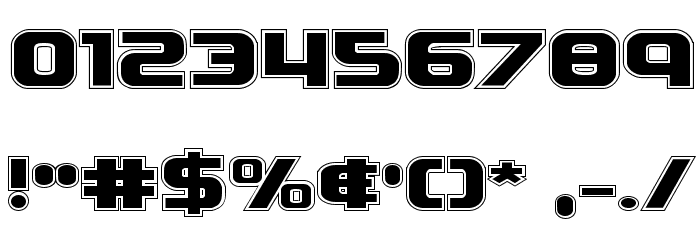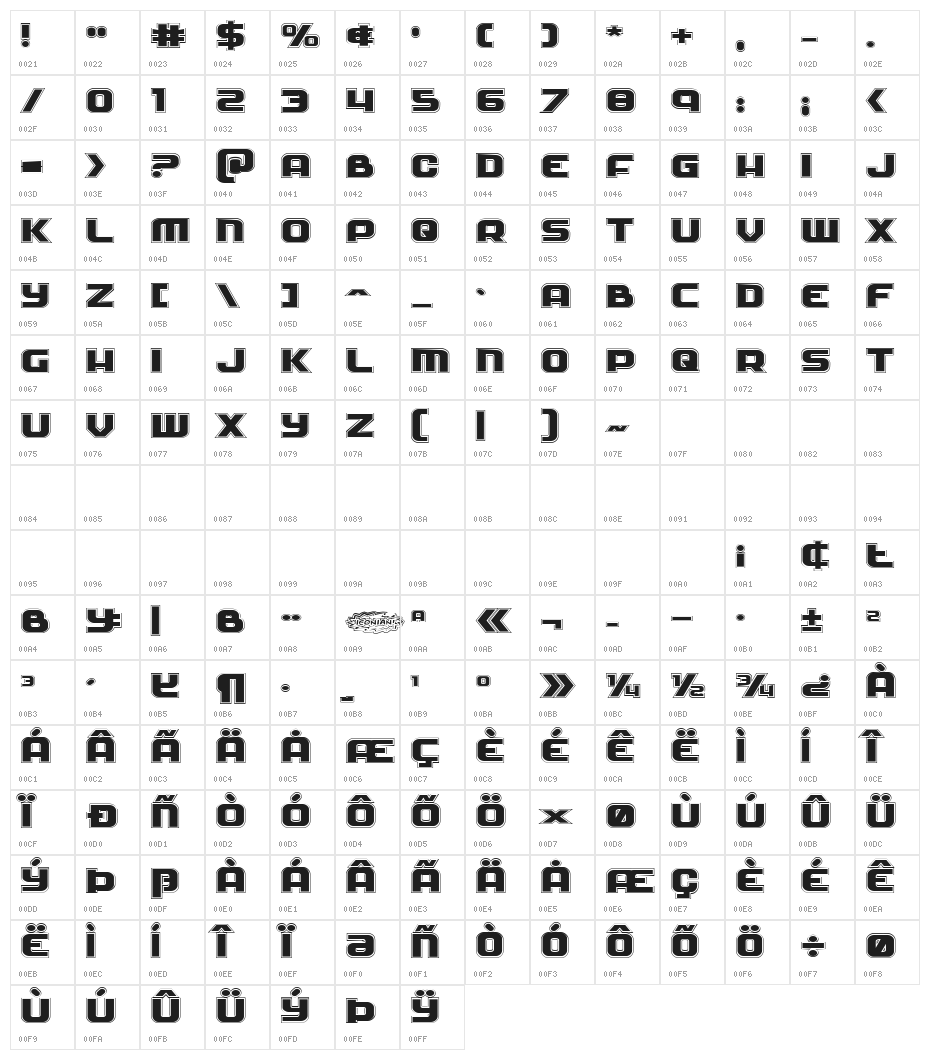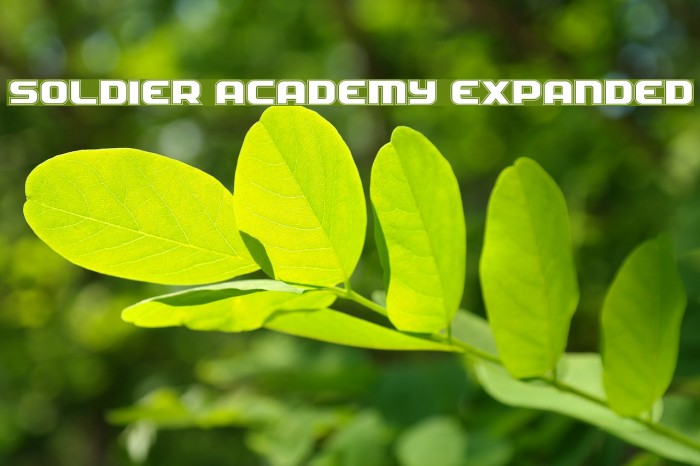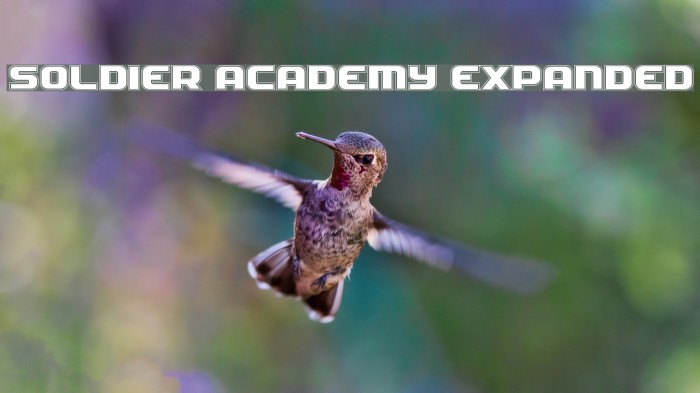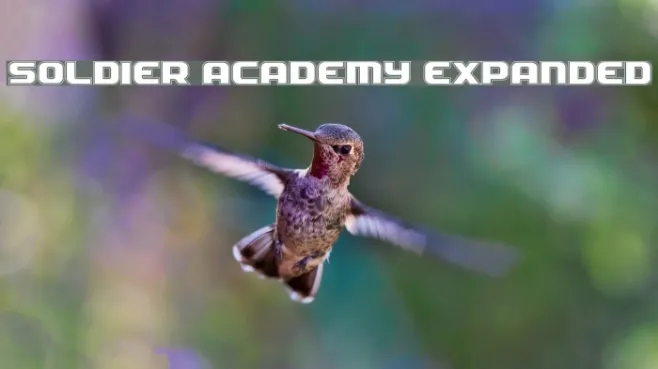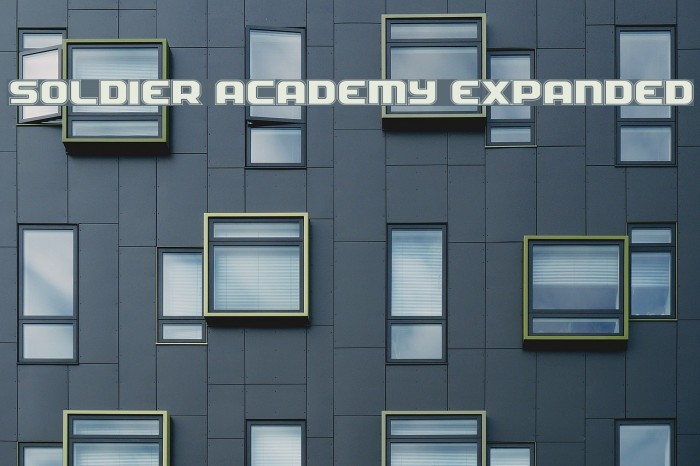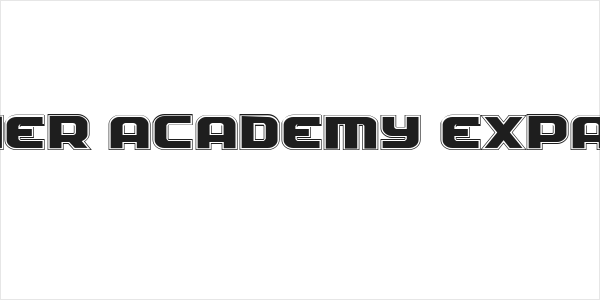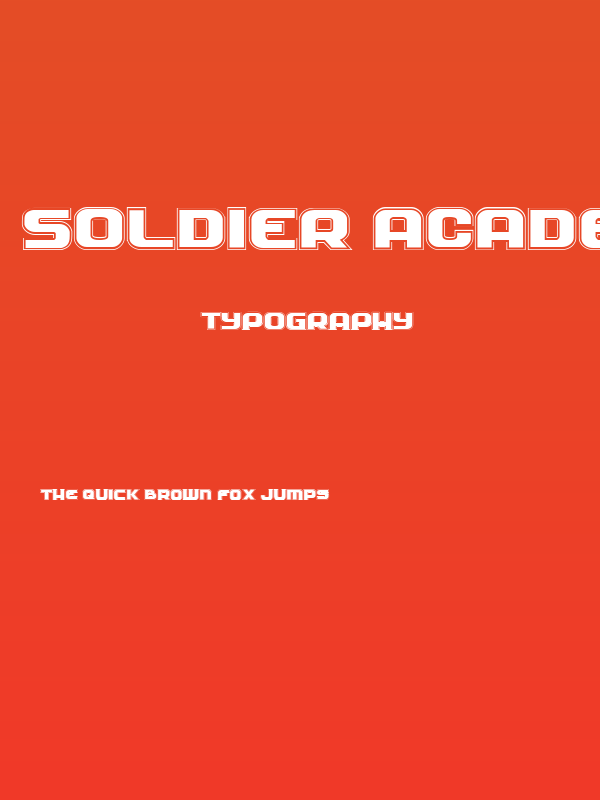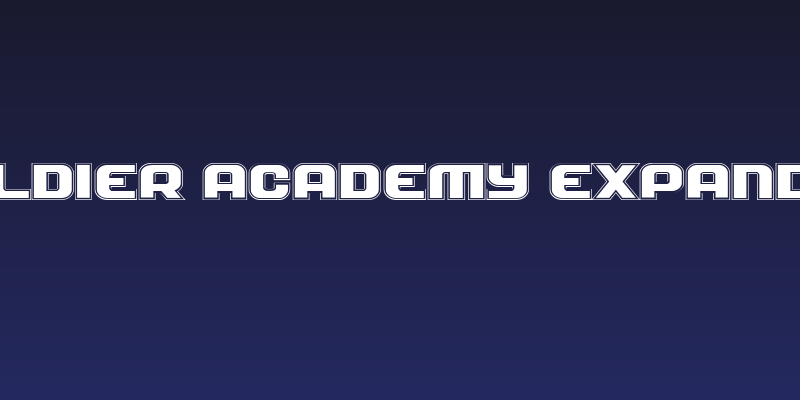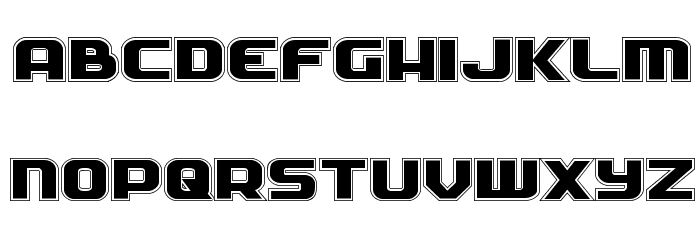
Soldier Academy Expanded Font
Soldier Academy Expanded Description
This font features a bold, geometric design with a strong, military-inspired aesthetic. The characters are blocky and robust, with a distinct three-dimensional effect created by the use of shadowing. The uppercase letters are particularly striking, with sharp angles and a solid presence that commands attention. The numbers and special characters maintain the same bold style, ensuring consistency across all text. This font is ideal for projects that require a strong, authoritative look, such as posters, banners, or branding for sports teams or action-oriented products.